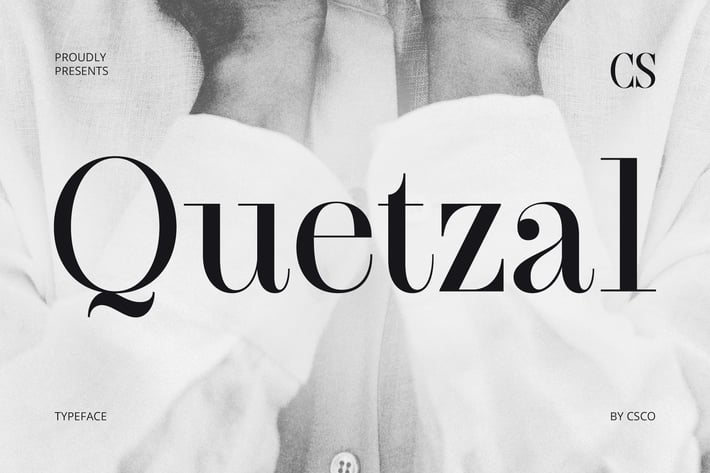
Quetzal – Classic Font
CS Quetzal – Classic Font: Timeless Elegance with a Modern Touch
Modern Serif with Didone Style
CS Quetzal is a modern serif font that embraces the refined aesthetics of the Didone style. With its high contrast between thick and thin strokes, it offers a look that is both elegant and sophisticated. This font blends traditional influences with a contemporary edge, making it an excellent choice for luxury branding, editorial design, and upscale packaging.
Sharp Serifs for a Polished Look
Featuring precisely structured letterforms and sharp serifs, CS Quetzal exudes a refined and polished appeal. Its crisp edges and balanced proportions ensure clarity and readability while maintaining an air of exclusivity. The clean, structured letterforms make it a perfect match for projects that demand a bold yet sophisticated presence.
Perfect for Premium Branding and Editorials
Designed for high-end applications, CS Quetzal is ideal for premium branding, fashion magazines, and luxury packaging. Its elegant strokes and striking contrast allow it to shine in headline typography, advertising materials, and logo designs. Whether used in print or digital media, this font delivers a timeless charm that enhances the overall visual impact.
Versatile for High-End Designs
With its modern Didone style, CS Quetzal remains relevant for contemporary projects that prioritize bold and clean aesthetics. Whether for logos, advertising, or editorial layouts, this font offers timeless elegance with a striking presence.